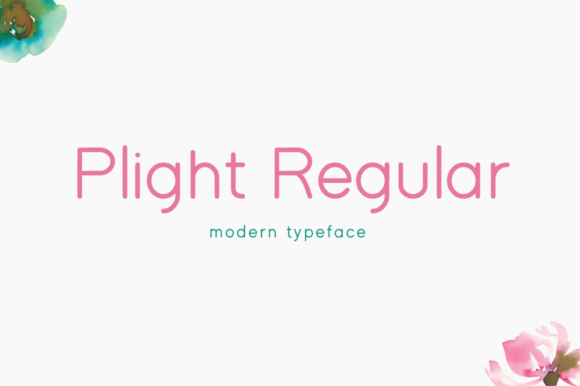
Behold Plight Regular, a whimsical display font crafted by Seemly Fonts, a master of typographic artistry. With its captivating presence, Plight Regular is not just a font; it's a gateway to a world of creativity and expression. Each letterform dances across your screen, evoking a sense of wonder and delight.
Immerse yourself in the story that Plight Regular tells. Its playful strokes and enchanting curves create a visual symphony that captivates the eyes and sparks the imagination. Transform your digital designs into captivating works of art, whether it's a baby shower banner, a whimsical poster, or an eye-catching social media post.
With Plight Regular, your words take on a life of their own, conveying emotions and messages with a touch of magic. Its enchanting style adds a sprinkle of joy to any project, making it the perfect choice for those seeking to leave a lasting impression. Let Plight Regular be your muse, guiding you towards creative brilliance and captivating designs.
Delve into a world of limitless possibilities with Plight Regular. Its versatility extends beyond baby banners; it's an ideal font for logos, branding, invitations, greeting cards, and any project craving a touch of whimsy and elegance. Embrace the extraordinary and let Plight Regular elevate your designs to new heights of creativity.
Craft a visual masterpiece with Plight Regular, a font that captivates and inspires. Its enchanting allure will leave your audience spellbound, eager to explore the whimsical world you've created. Unleash your imagination and let Plight Regular guide you towards typographic excellence.